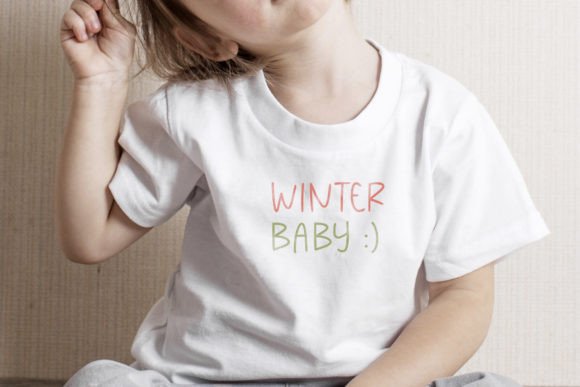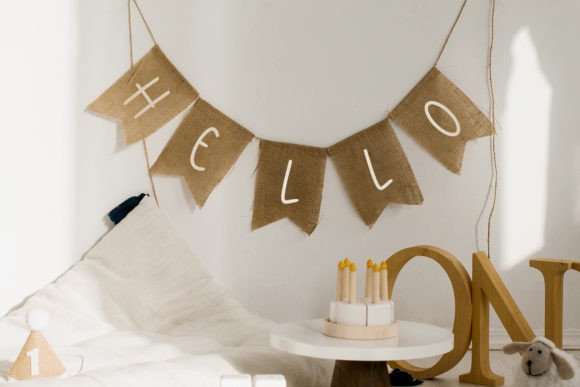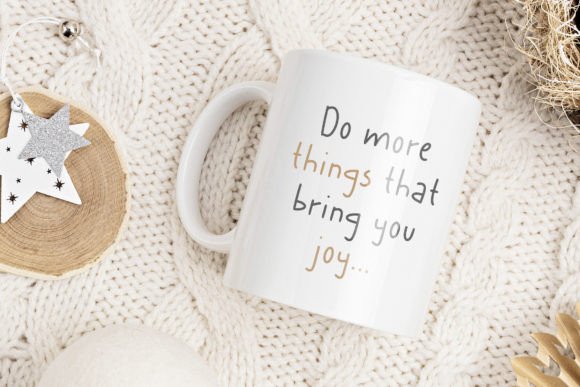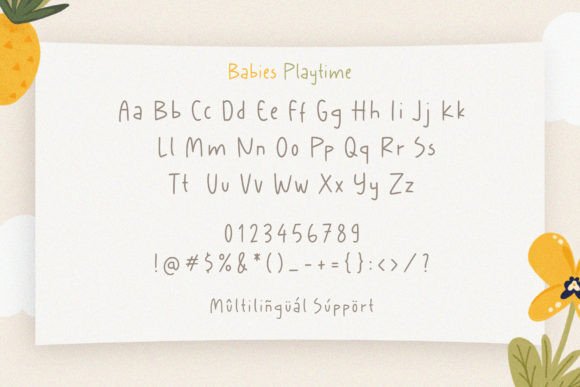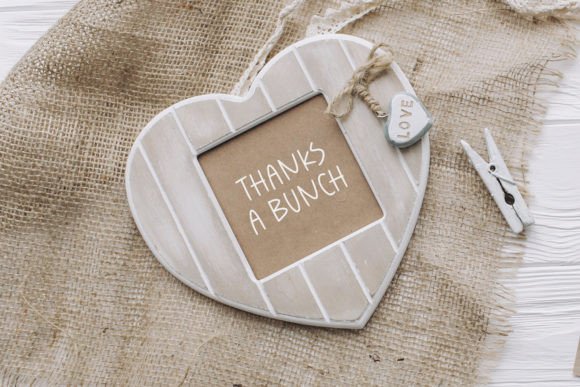
Babies Playtime Font: The Perfect Addition to Your Design Arsenal
Are you a designer or crafter looking for a font that can add a touch of sweetness and friendliness to your projects? Look no further than Babies Playtime Font! This beautiful handwritten font is perfect for a wide range of designs, from baby-themed projects to crafts and more. In this article, we’ll take a closer look at Babies Playtime Font and explore its features, benefits, and uses.
What is Babies Playtime Font?
Babies Playtime Font is a sweet and friendly handwritten font that is designed to bring a touch of natural and unique style to your designs. Its effortless and carefree vibe makes it incredibly fitting to a large pool of designs, and the only limit is your imagination! Whether you’re creating a baby shower invitation, a nursery decor, or a craft project, Babies Playtime Font is the perfect choice.
Features of Babies Playtime Font
So, what makes Babies Playtime Font so special? Here are some of its key features:
- Handwritten style: Babies Playtime Font has a beautiful handwritten style that gives it a personal and unique touch.
- Sweet and friendly: The font has a sweet and friendly vibe that makes it perfect for baby-themed projects and crafts.
- Natural and unique: The font’s natural and unique style makes it incredibly fitting to a wide range of designs.
- Easy to read: Despite its handwritten style, Babies Playtime Font is easy to read and understand, making it perfect for body text and headings.
Benefits of Using Babies Playtime Font
So, why should you choose Babies Playtime Font for your designs? Here are some of its benefits:
- Adds a personal touch: Babies Playtime Font adds a personal touch to your designs, making them more relatable and engaging.
- Perfect for baby-themed projects: The font’s sweet and friendly vibe makes it perfect for baby-themed projects, such as baby shower invitations, nursery decor, and baby clothes.
- Versatile: Babies Playtime Font is versatile and can be used for a wide range of designs, from crafts to digital projects.
Uses of Babies Playtime Font
So, what can you use Babies Playtime Font for? Here are some ideas:
- Baby shower invitations: Create beautiful and unique baby shower invitations with Babies Playtime Font.
- Nursery decor: Use the font to create nursery decor, such as wall art, banners, and signs.
- Baby clothes: Design adorable baby clothes, such as onesies and t-shirts, with Babies Playtime Font.
- Crafts: Use the font to create a wide range of crafts, from cards to scrapbooking.
- Digital projects: Use Babies Playtime Font for digital projects, such as social media graphics, blog posts, and website headers.
Tips for Using Babies Playtime Font
Here are some tips for using Babies Playtime Font:
- Use it for headings and titles: Babies Playtime Font is perfect for headings and titles, as it adds a touch of sweetness and friendliness to your designs.
- Pair it with other fonts: Experiment with pairing Babies Playtime Font with other fonts to create a unique and interesting look.
- Use it for body text: Despite its handwritten style, Babies Playtime Font is easy to read and can be used for body text.
In conclusion, Babies Playtime Font is a beautiful and versatile font that is perfect for designers and crafters. Its sweet and friendly vibe makes it incredibly fitting to a wide range of designs, from baby-themed projects to crafts and more. With its easy-to-use and versatile features, Babies Playtime Font is a great addition to any design arsenal.